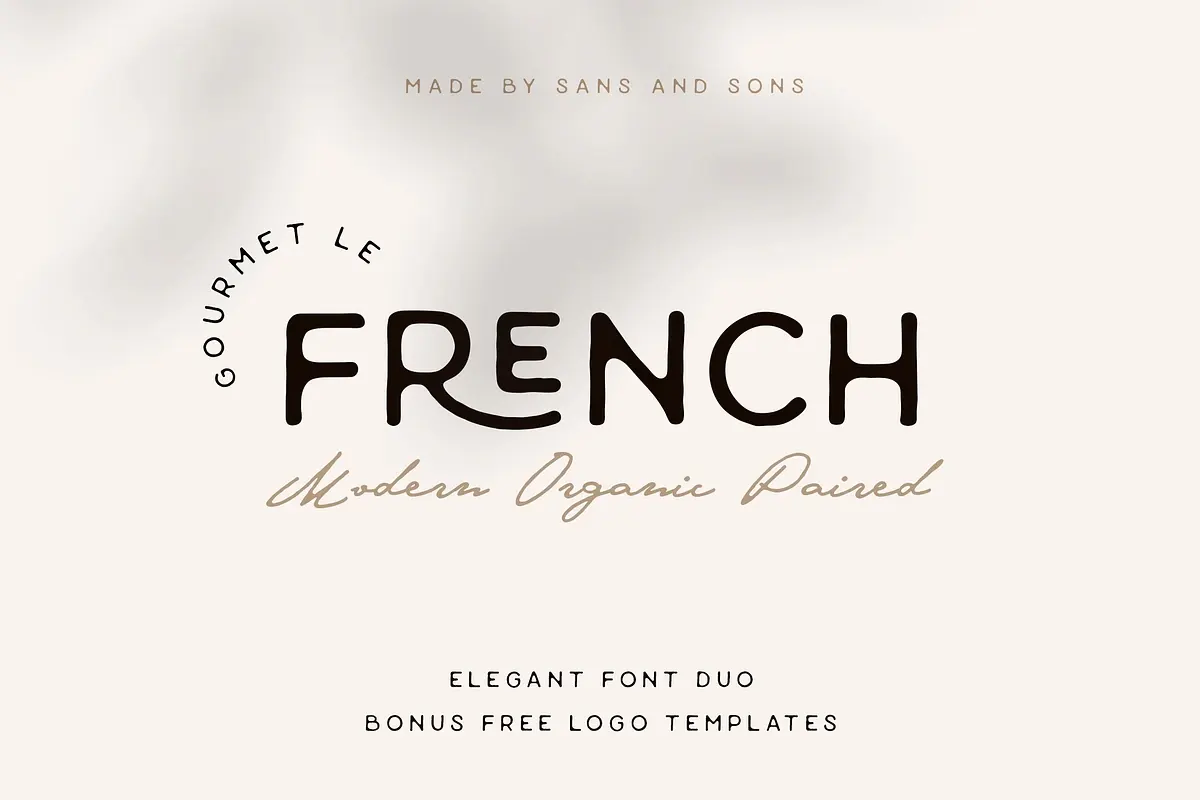
Please note that you must purchase this font for commercial use. You can download Le French – Organic Paired Duo Font for free, strictly for personal testing purposes only. Le French is a beautiful, organic font duo that pairs a modern sans-serif with a delicate handwritten script. Designed to complement each other, Le French Font Free Download offers the perfect blend of clean, minimalist lines and artistic, fluid brush strokes.
This font duo is perfect for creating charming, modern branding, elegant logos, invitations, and social media graphics. It includes uppercase and lowercase letters, numerals, punctuation, and multilingual support, offering versatility across various design projects.
Whether you're crafting a sophisticated brand identity, designing wedding invitations, or creating artistic promotional materials, Le French brings a refined, organic touch to your typography.